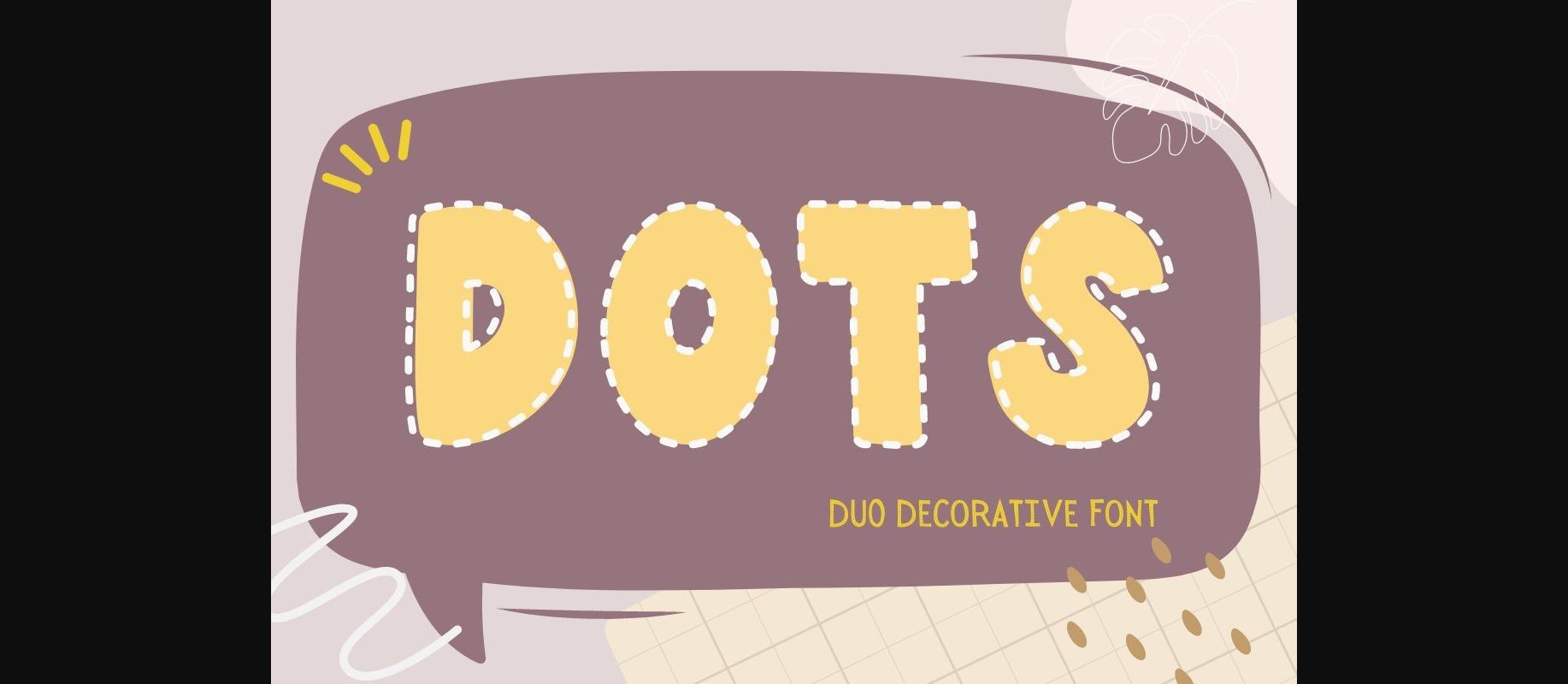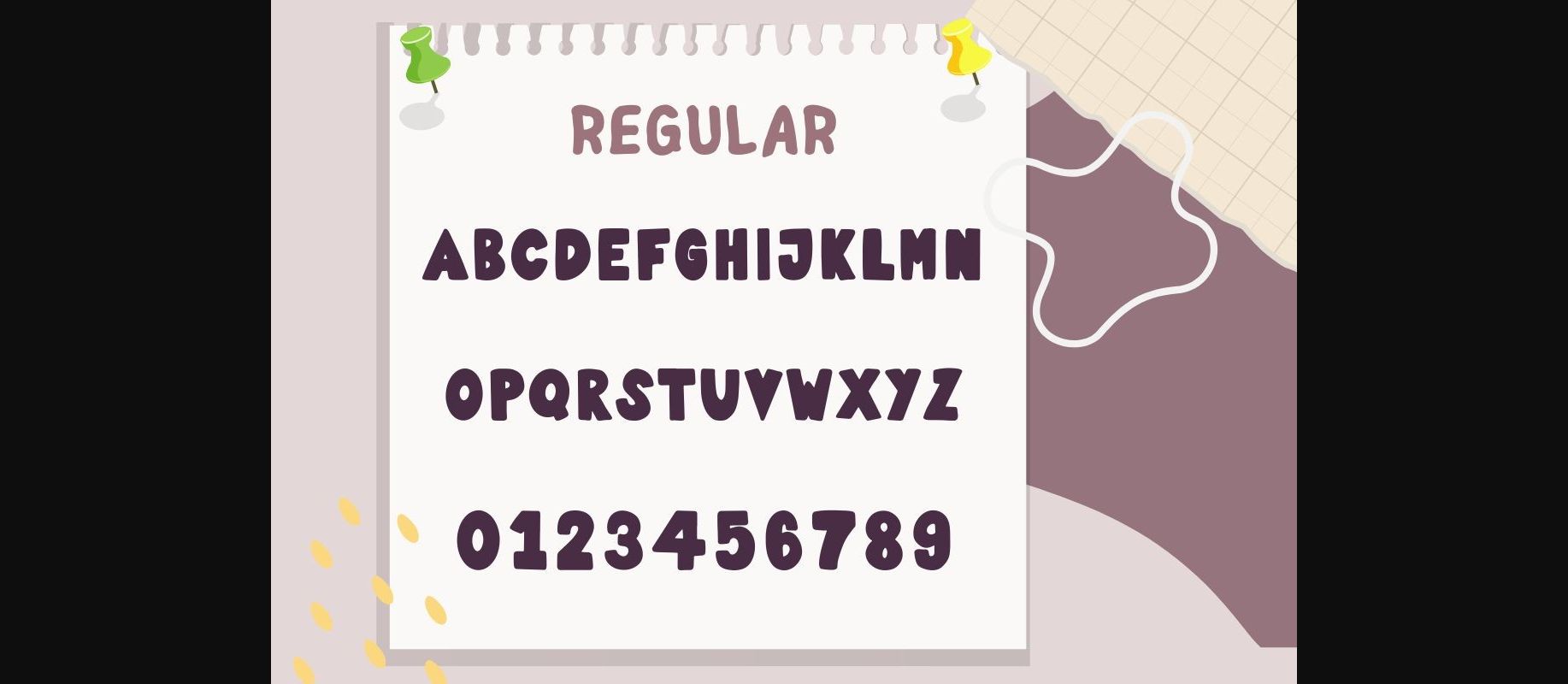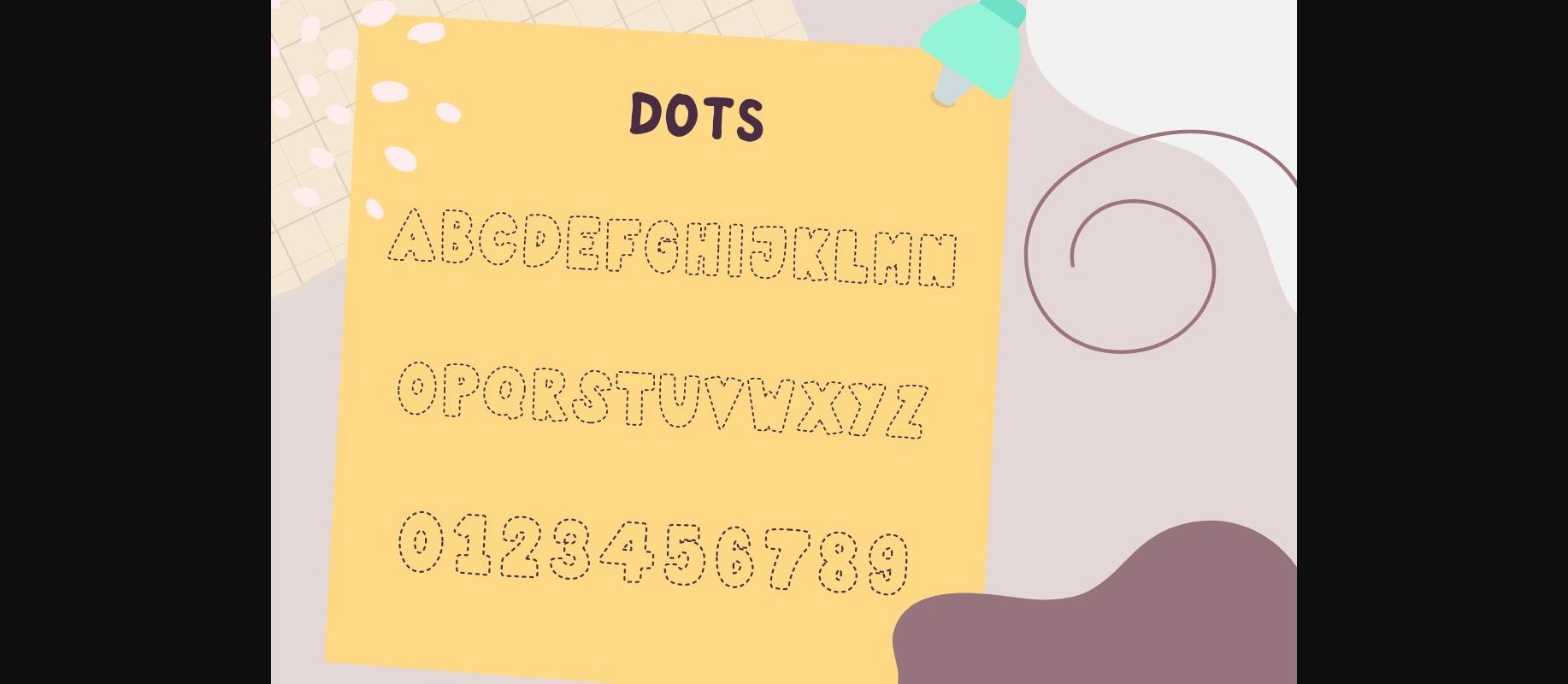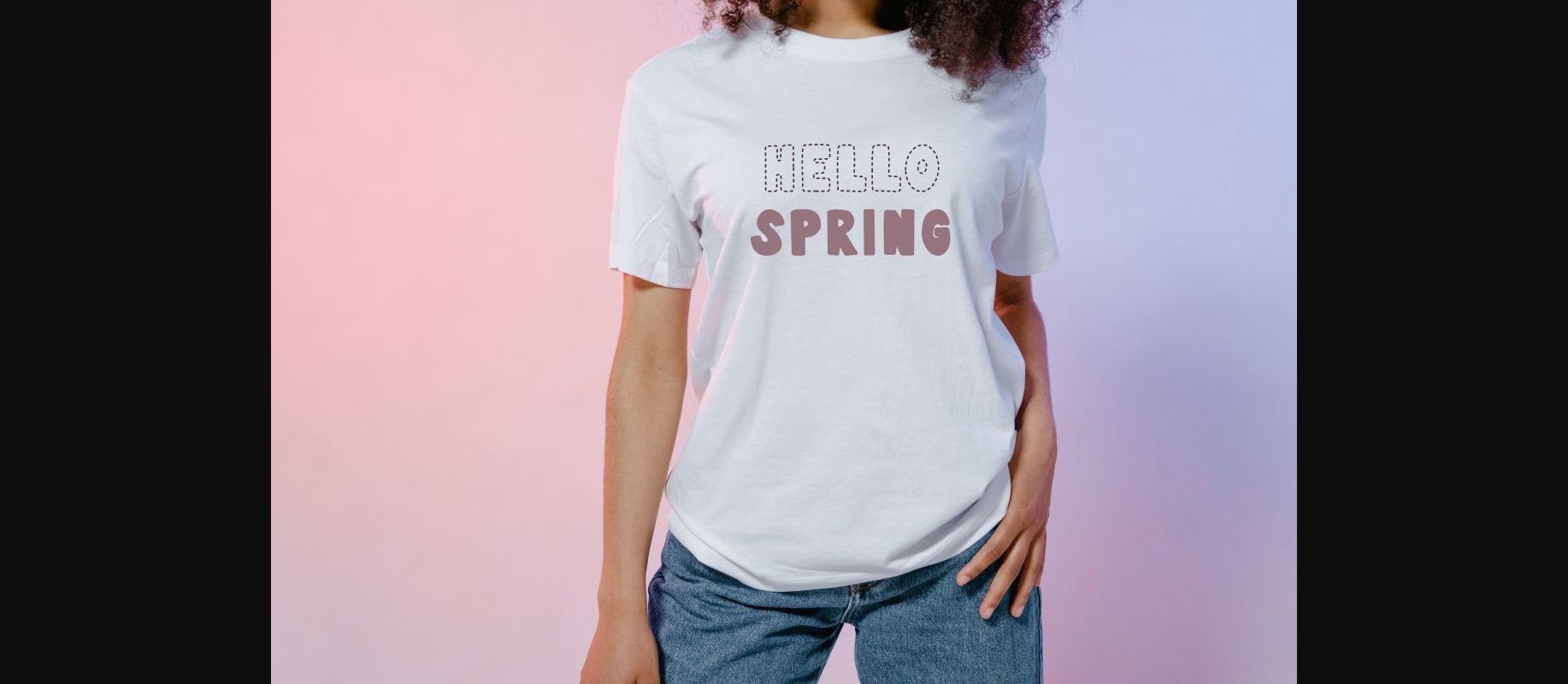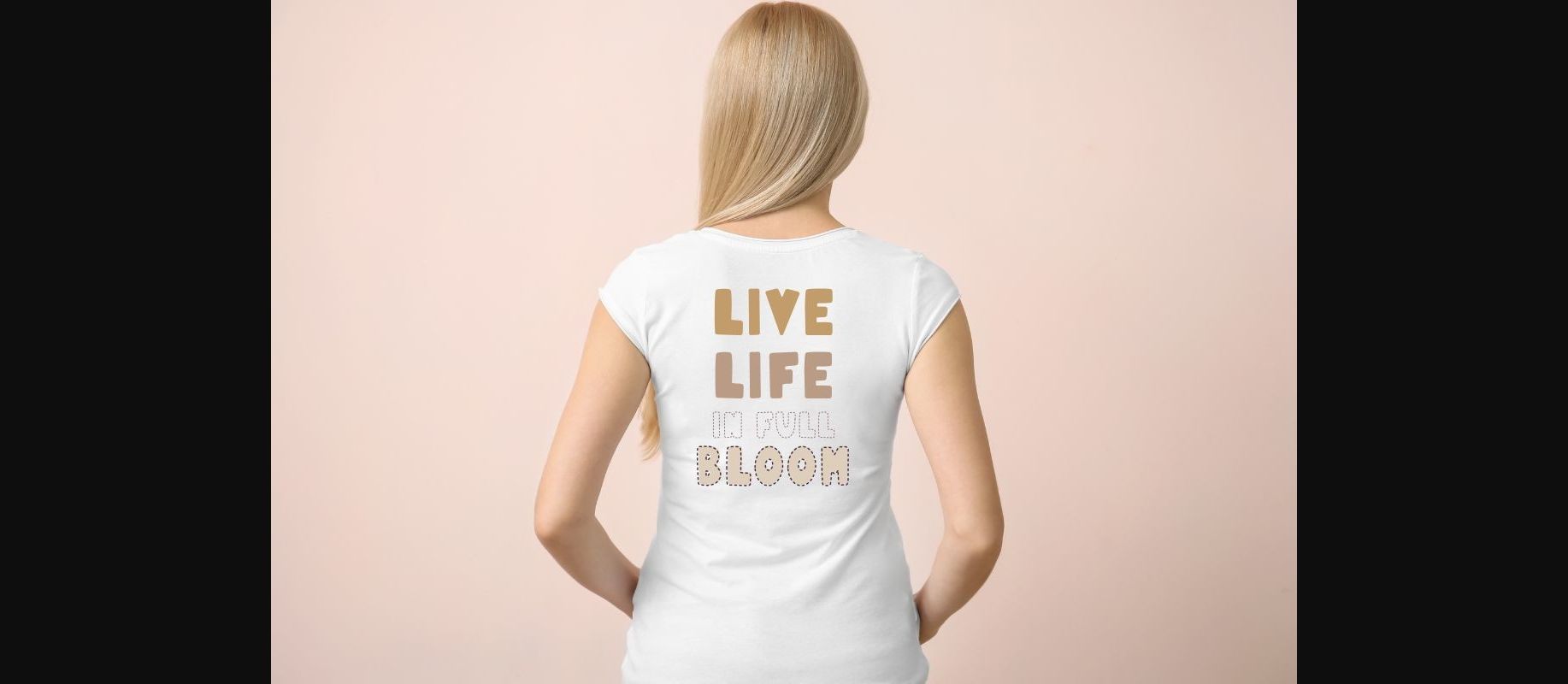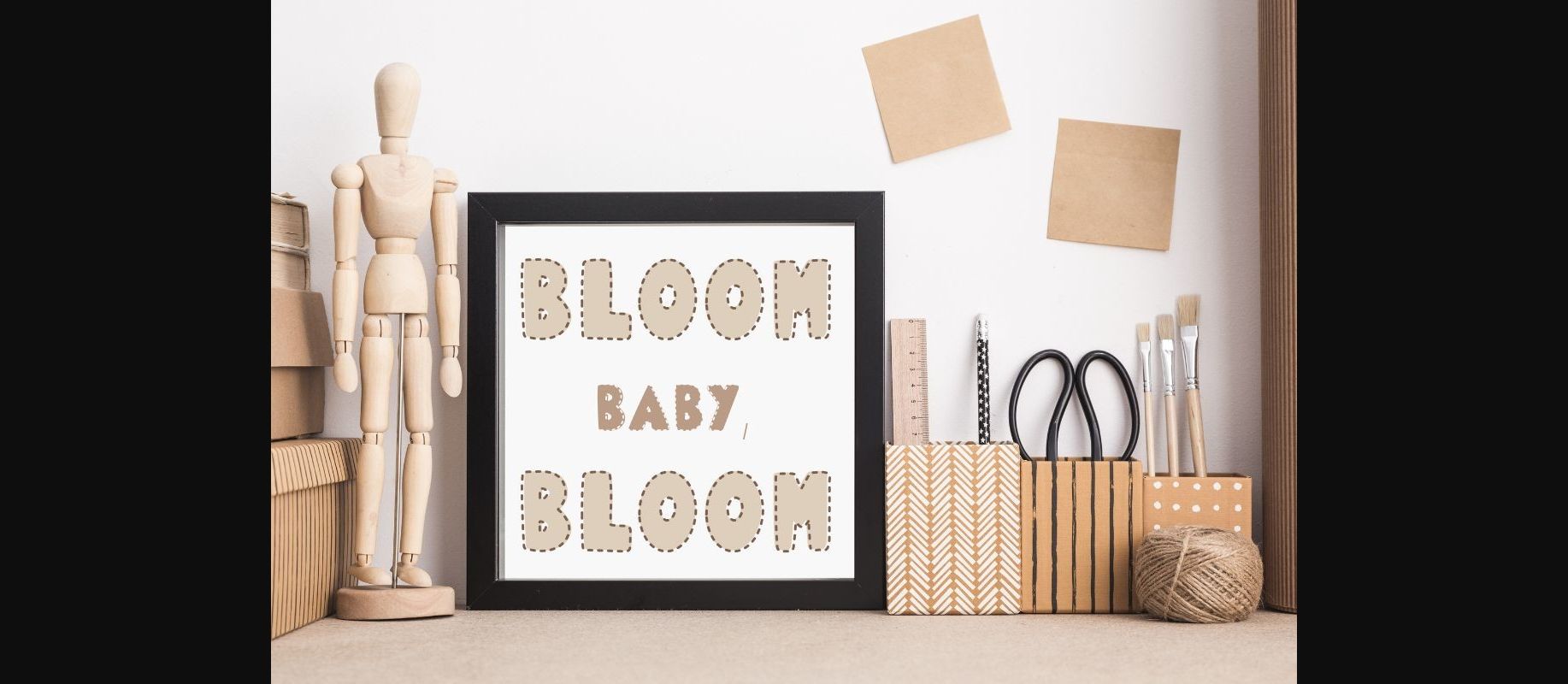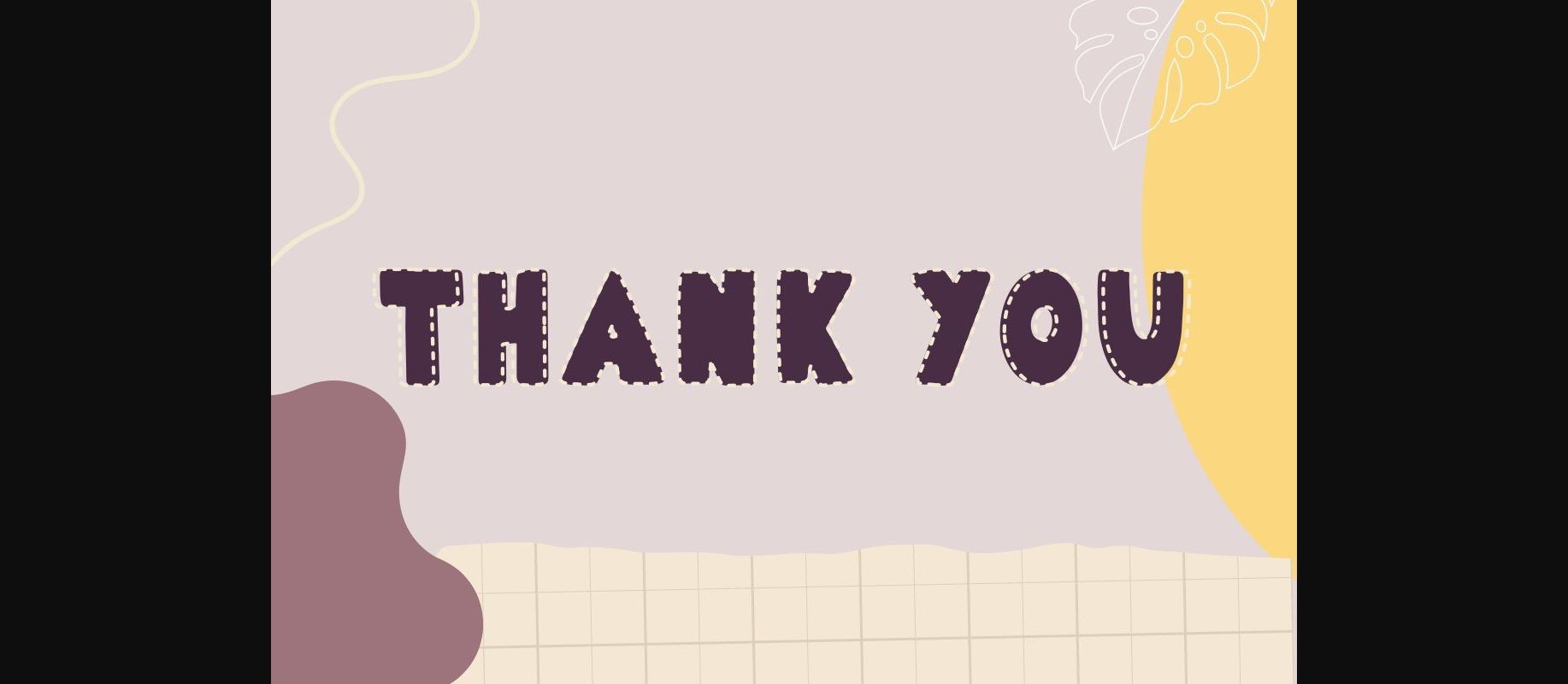
Dots Font
About Dots Font
Dots is an exquisite decorative font, carefully elaborated to become a true favorite. It has an outstanding writing technique that fits lots of design ideas such as blog posts, ads, invitations, greeting cards, planners, photo albums, decorations, and much more. Add it to any of your designs and enjoy the results!